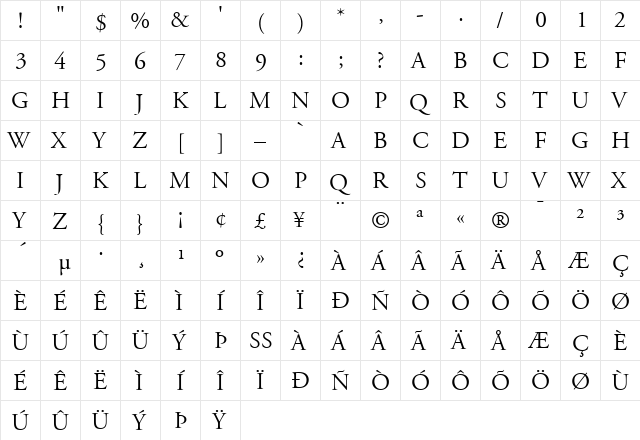
AdobeGaramondTitlingCapitals Roman Font Preview
AdobeGaramondTitlingCapitals Roman
AdobeGaramondTitlingCapitals Roman Font Details
Design Context for AdobeGaramondTitlingCapitals Typeface
AdobeGaramondTitlingCapitals takes a measured approach to typography — its balanced proportions and neutral character make it a reliable workhorse for both digital and print work.
Pro Tip: Pair AdobeGaramondTitlingCapitals with a font of contrasting weight or personality to build a more expressive typographic hierarchy.